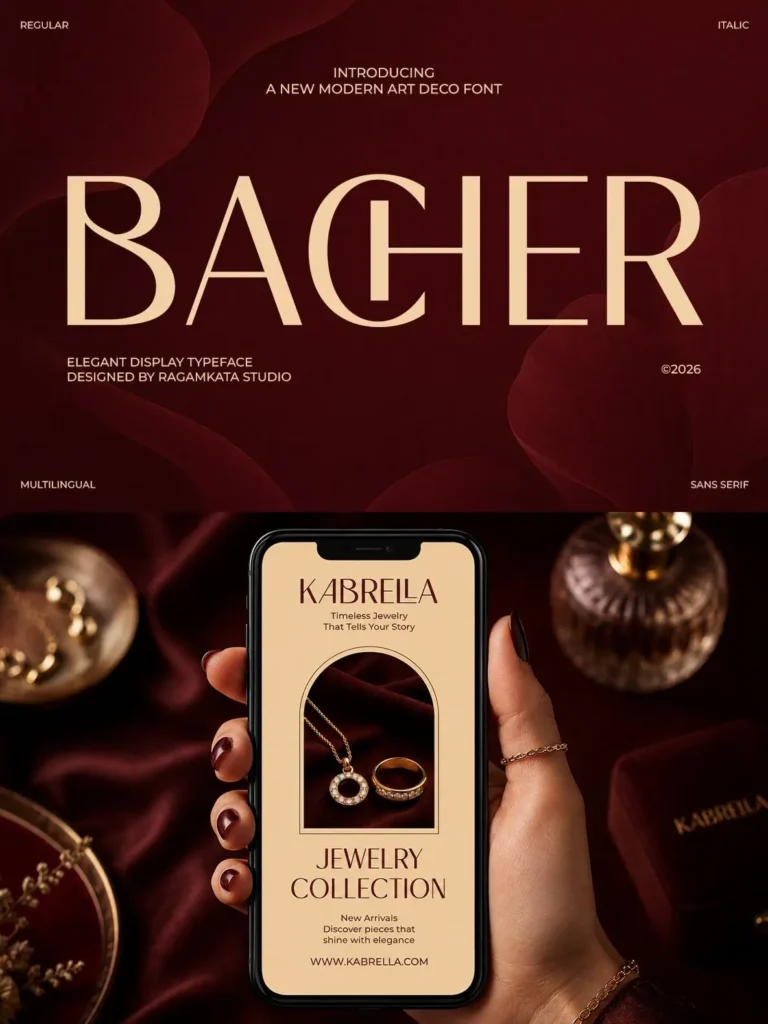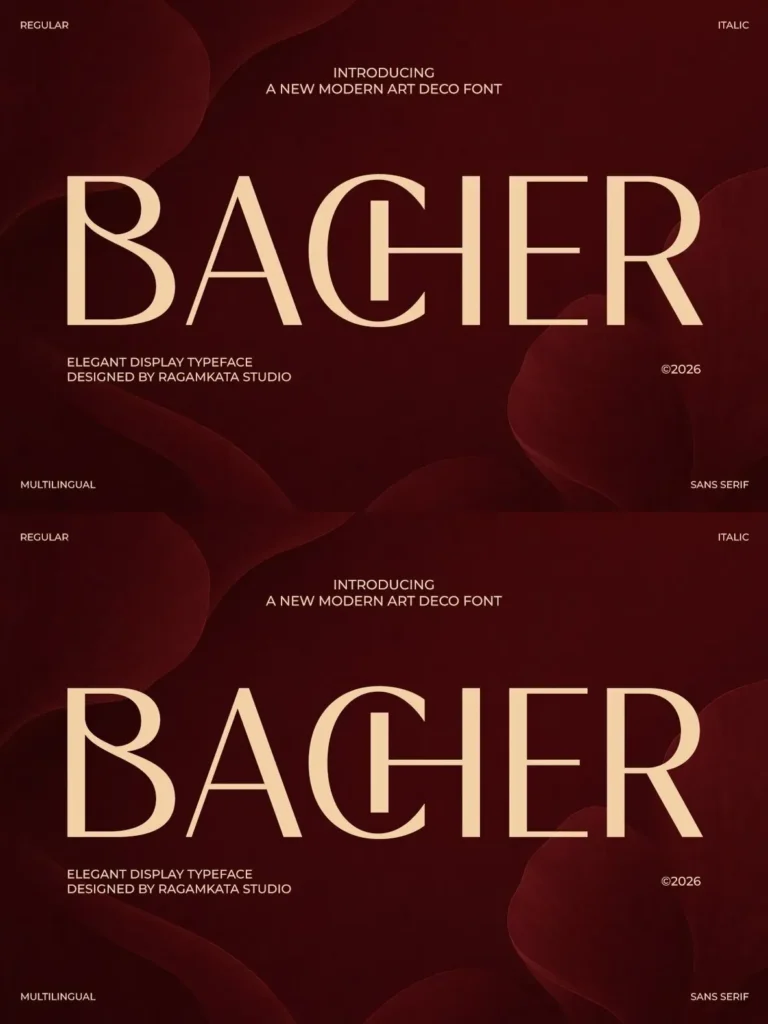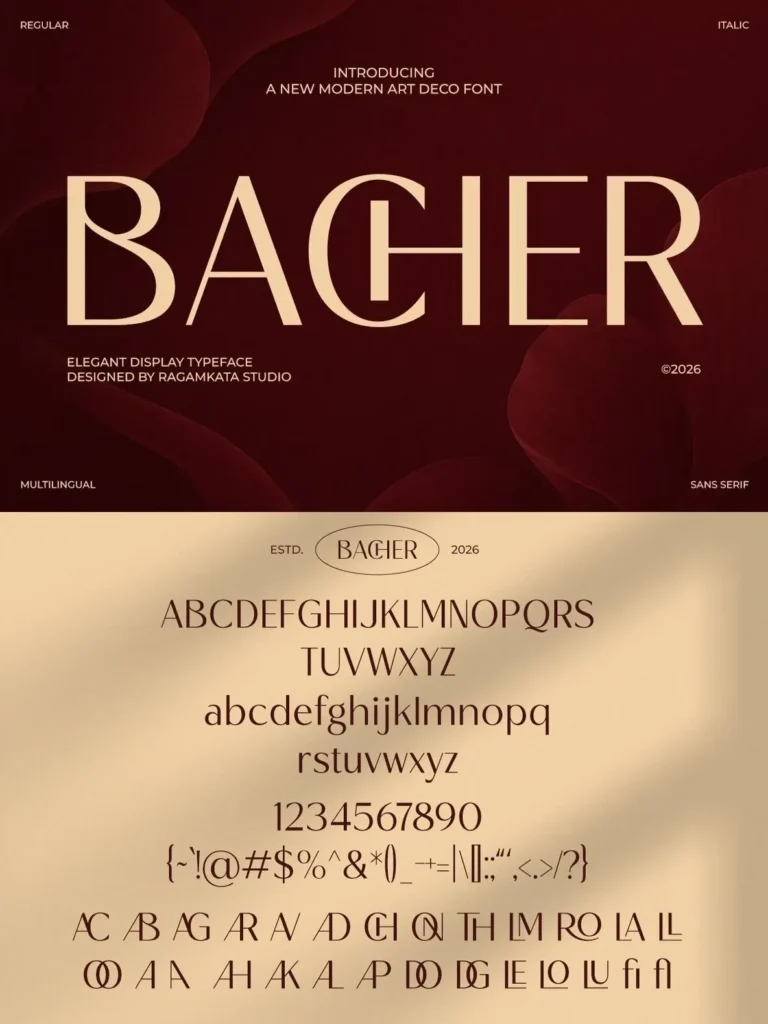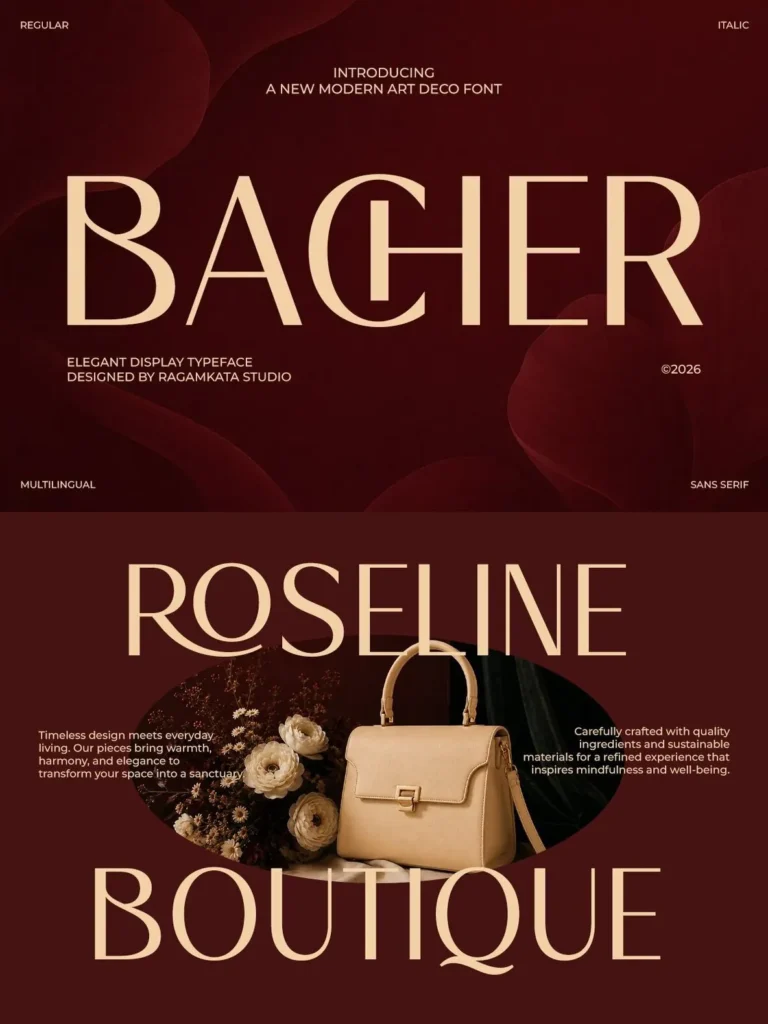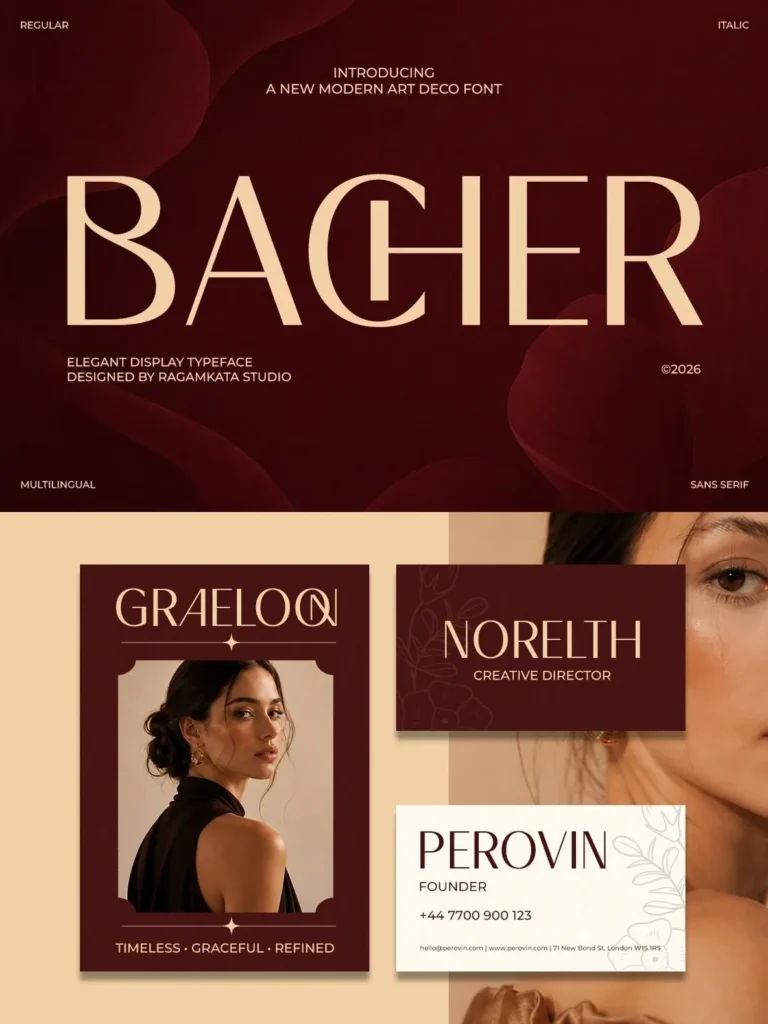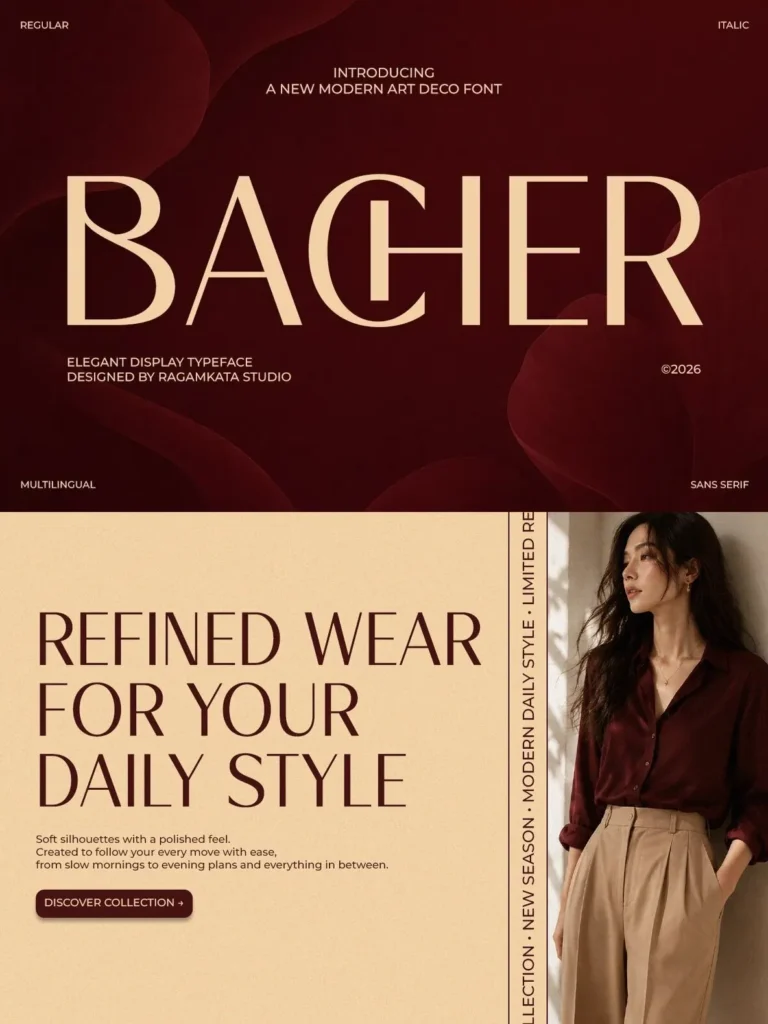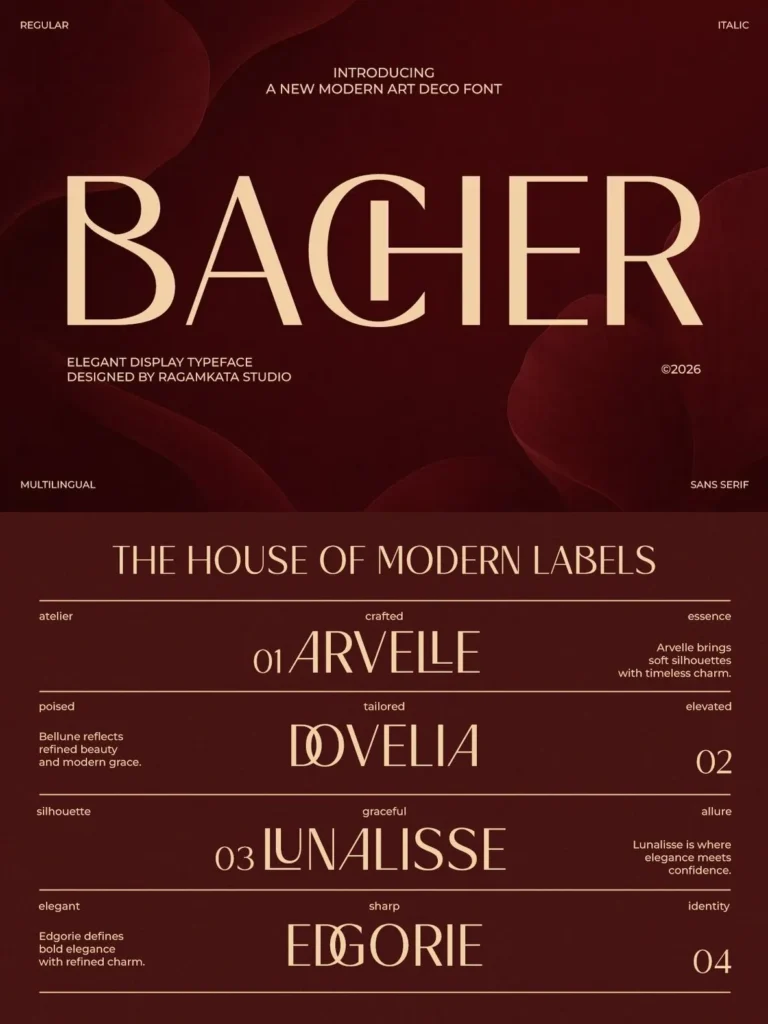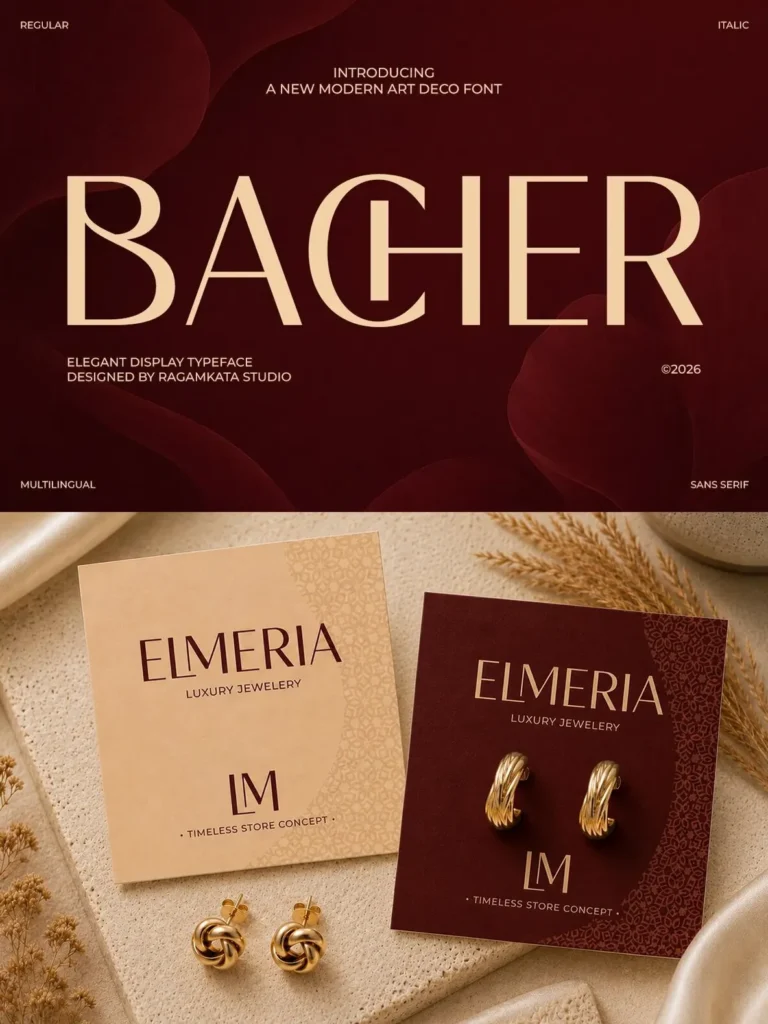
Bacher — Art Deco Poise
Bacher is a sophisticated modern Art Deco typeface that blends timeless elegance with contemporary minimalism. Inspired by the glamour of the Art Deco era, this display font uses refined geometric forms, graceful curves, and high-contrast letterforms to create a luxurious visual presence. Its distinctive character gives headlines a premium, stylish, and memorable look.
Designed for modern branding needs, Bacher delivers exceptional versatility across luxury logos, fashion editorials, beauty packaging, hotel branding, jewelry promotions, wedding invitations, magazine headlines, and premium social media content. Its clean structure and elegant proportions support strong readability while preserving an artistic identity that draws attention quickly.
Bacher suits high-end brand identity, editorial layout, cosmetic product line, and sophisticated marketing campaign projects. Its combination of Art Deco influence and modern aesthetics gives designers a polished font for work that calls for elegance, luxury, and timeless appeal.
Regular and Italic Style
Stylistic Ligatures
Uppercase and Lowercase